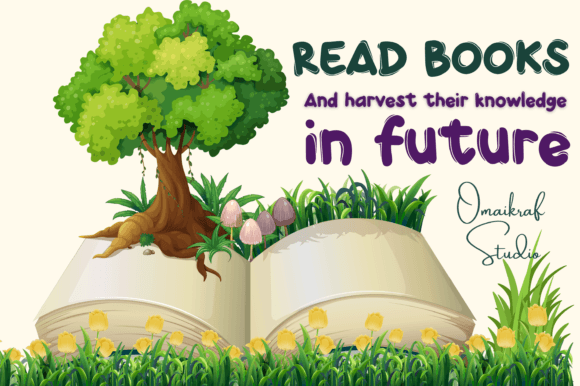
Welcome to the world of Chunking Font, a display font family that captures the essence of childhood wonder and playfulness. With its chunky and dynamic characters, Chunking is the perfect font for projects that aim to evoke a sense of nostalgia and fun.
Whether you're designing invitation cards for a kid's birthday party, creating posters for a school play, or crafting letterings for a nursery room, Chunking Font is the perfect choice. Its playful and whimsical style adds an element of charm and personality to any project, making it stand out from the crowd.
But don't let its playful nature fool you - Chunking Font is also a versatile performer in the world of business communications. Its bold and eye-catching characters make it an excellent choice for business cards, flyers, and brochures. With Chunking Font, your messages will be sure to grab attention and leave a lasting impression.
So, if you're looking for a font that combines creativity, versatility, and a touch of nostalgia, look no further than Chunking Font. Download it today and let your imagination run wild!